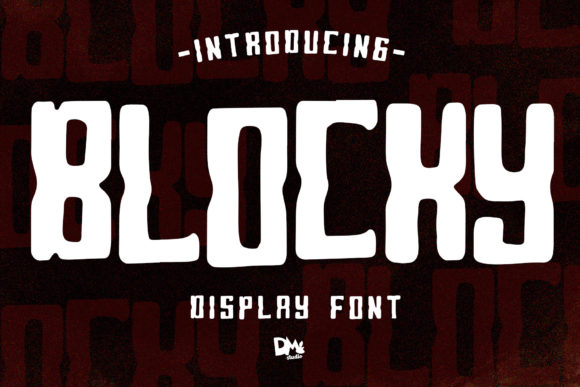
Prepare to be amazed by Blocky, a display font that will add a dash of uniqueness to your creative projects. Crafted by the talented dmletter31, Blocky stands out with its exceptional style, promising to transform your designs into captivating masterpieces.
Blocky's distinct character is a perfect match for a diverse range of projects, from eye-catching headlines that demand attention to striking logos that leave a lasting impression. Its bold and chunky letters exude a sense of playfulness and energy, making it an ideal choice for creating posters, flyers, and social media graphics that are sure to grab eyeballs.
Unleash your imagination and explore the endless possibilities that Blocky offers. Its versatility extends beyond traditional design projects, seamlessly adapting to branding materials, packaging, and even merchandise. Imagine your brand's message emblazoned in Blocky's bold strokes, exuding a sense of confidence and originality that sets you apart from the crowd.
With Blocky at your fingertips, you have the power to evoke emotions and create a lasting impact on your audience. Its playful nature invites interaction and engagement, making it perfect for crafting social media posts, invitations, and marketing campaigns that resonate with your target audience.
Jump into the world of Blocky and unlock a new dimension of creativity. Its unique style will elevate your projects to new heights, leaving a lasting impression that captivates and inspires. Embark on this artistic journey today and witness the transformative power of Blocky, a font that dares to be different and refuses to be ordinary.